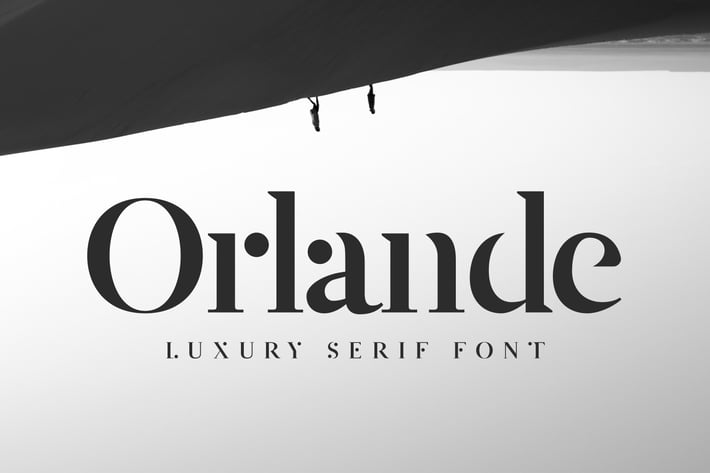
Orlande - Luxury Serif Font
Introducing Orlande - a luxury serif font for branding.
Orlande is perfect for all kinds of elegant branding projects, modern logos, invitations and titles.
It works best as a title or decorative font as it conveys modern minimalism.